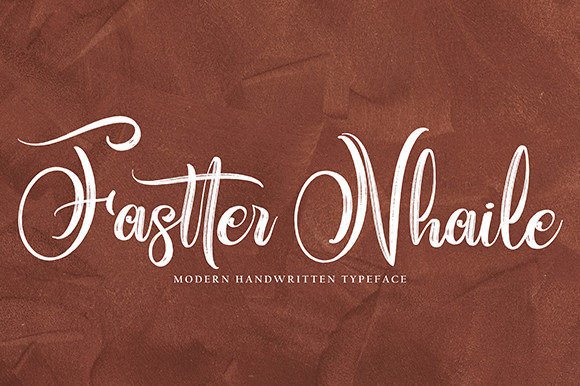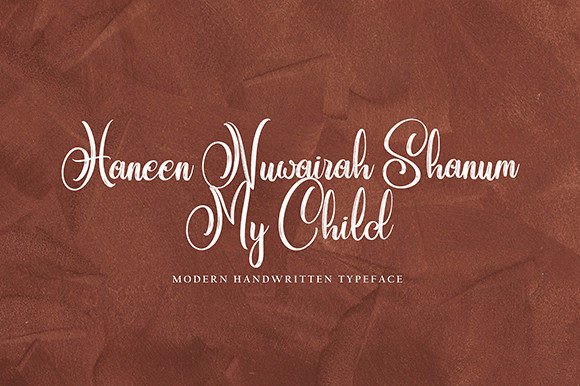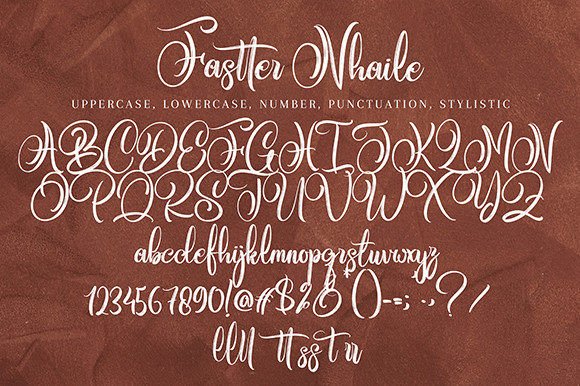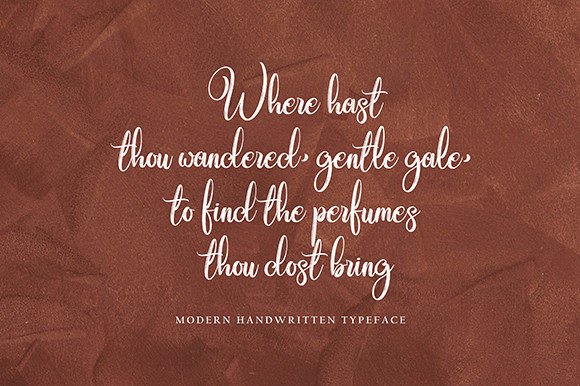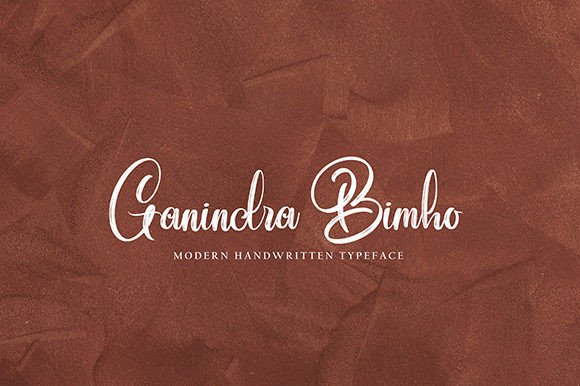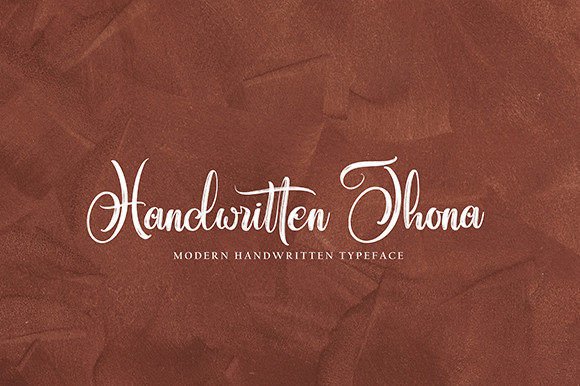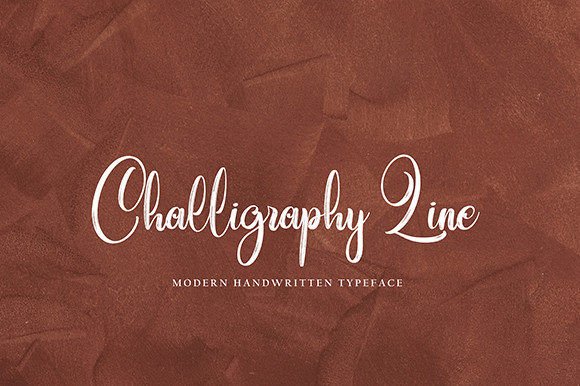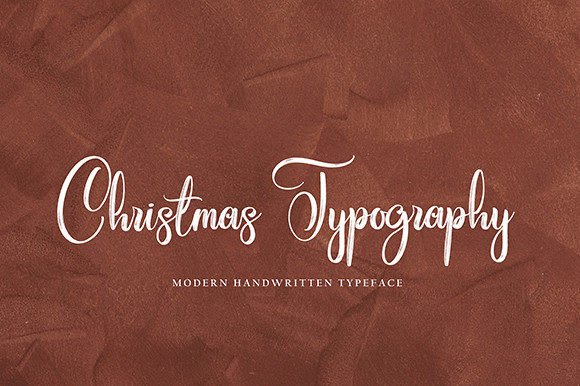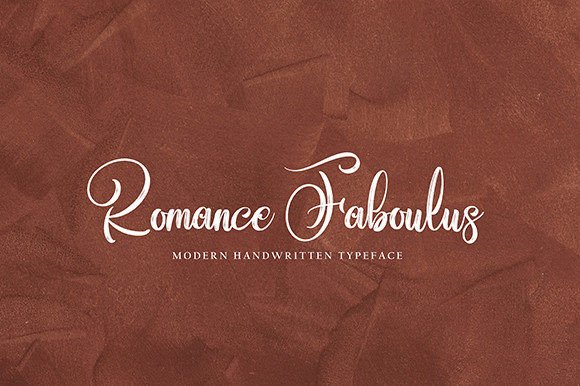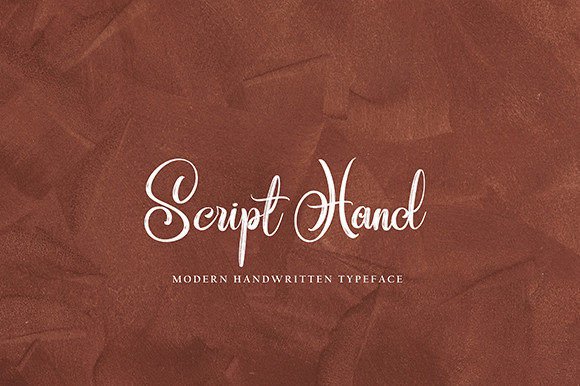
Fastter Nhaile Font
Fastter Nhaile Font Download – Stylish Elegant Handwritten Script
The Fastter Nhaile Font download is a unique handwritten script typeface that blends elegance with versatility. With its stylish strokes and refined curves, this font can bring sophistication to a wide range of design projects. Because it combines modern charm with timeless appeal, it works equally well for personal and professional designs.
Elegant Style for Creative Projects
Fastter Nhaile features smooth strokes and balanced letters that make it visually appealing. As a result, it feels polished while still natural. In addition, its versatility ensures that your text remains clear and attractive across different platforms.
Perfect for Invitations and Wedding Designs
Wedding invitations, event cards, and stationery shine when designed with this font. It adds romance and elegance, making every detail feel meaningful. Therefore, it is an excellent choice for personal celebrations or formal projects.
Fastter Nhaile Font Download in Social Media and Branding
The Fastter Nhaile Font download is also ideal for logos, product packaging, and social media graphics. Its stylish handwritten quality helps brands appear approachable and creative while maintaining professionalism.
Posters and Decorative Art
Posters, banners, and wall art come alive with the playful yet refined flow of this script. In addition, its clarity makes it perfect for both large displays and smaller creative details.
Readability and Versatility
Some handwritten fonts may look good but are difficult to read. Fastter Nhaile avoids this problem by balancing beauty and clarity. As a result, it is easy to use in both titles and body text.
Why Add This Font to Your Collection?
The Fastter NhaileFont download is flexible, stylish, and simple to use. In other words, it adapts well to personal creative projects and professional branding. Finally, it is a font that adds charm and elegance to every design.